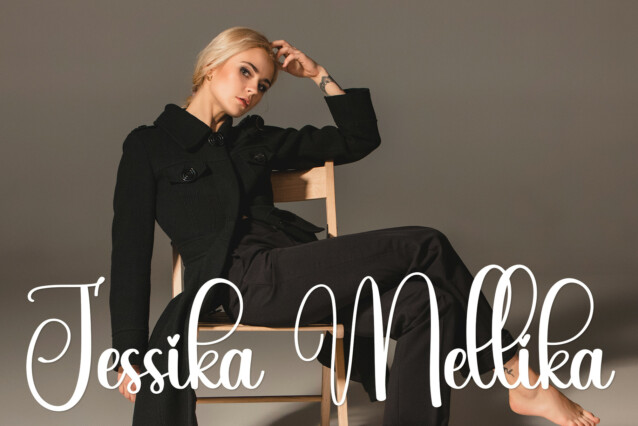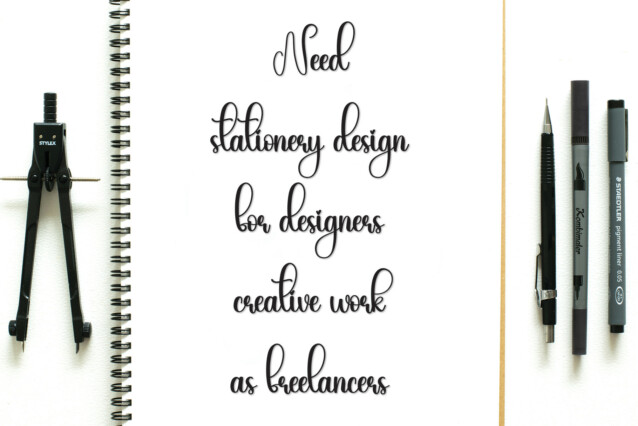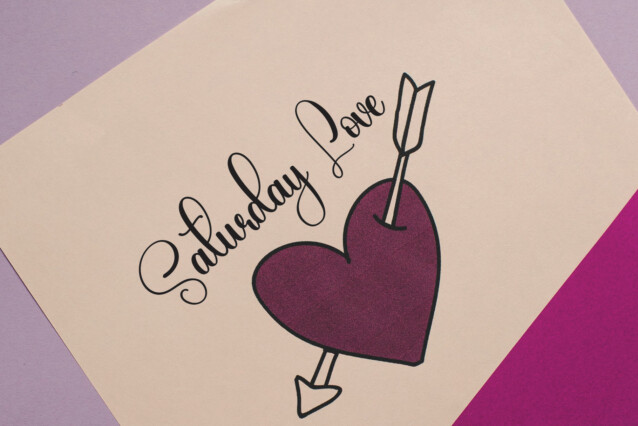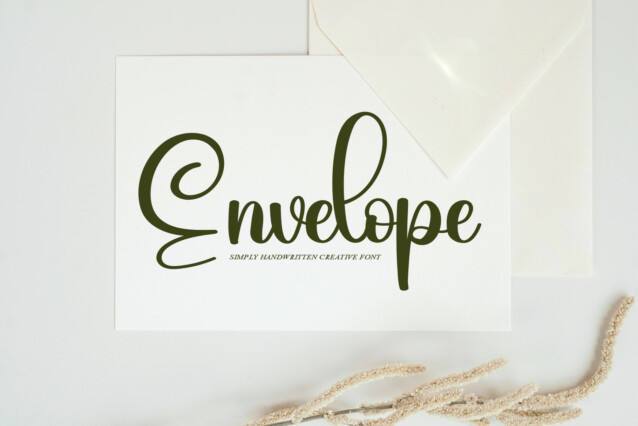
Tuesday Script Typeface
Tuesday Script Typeface is a casual and neat handwritten font. Trendy and stylish, this font will elevate each of your creations.